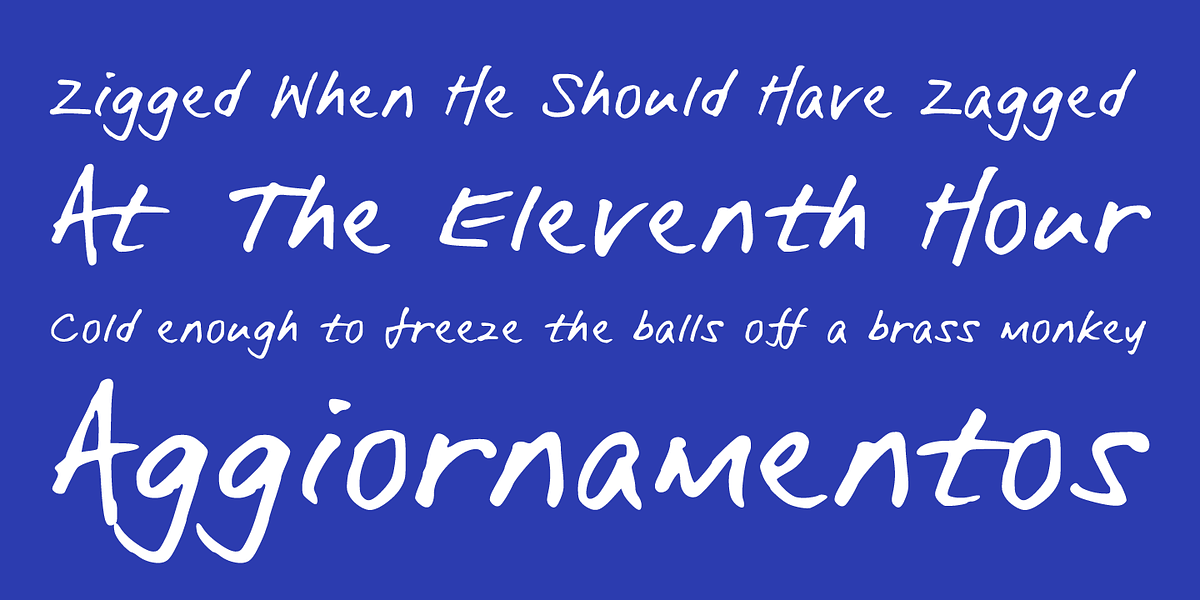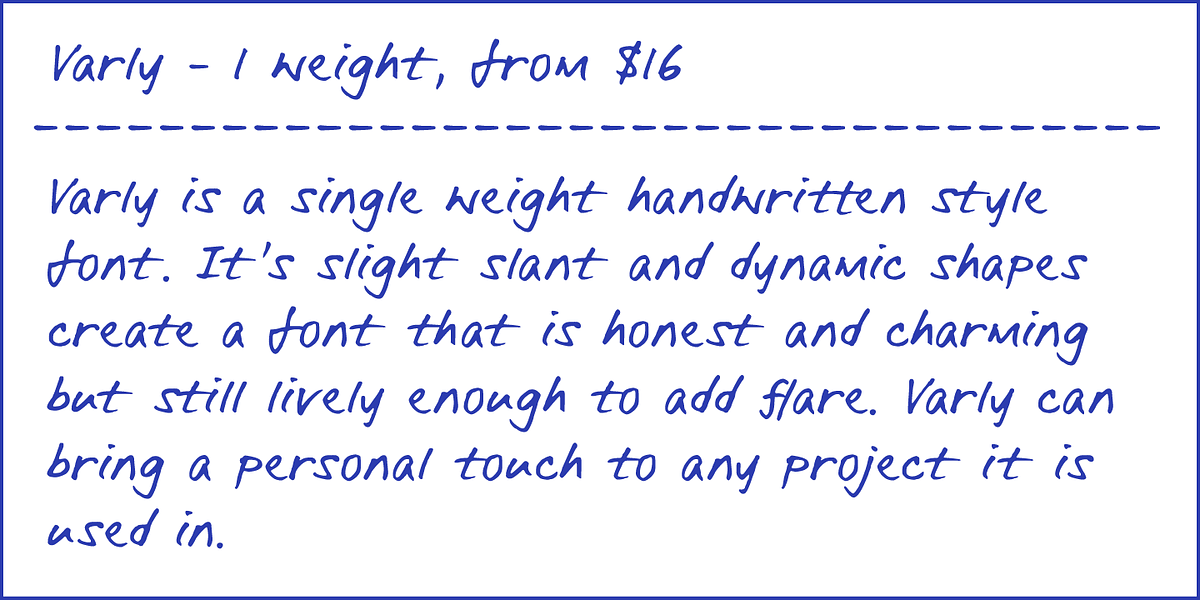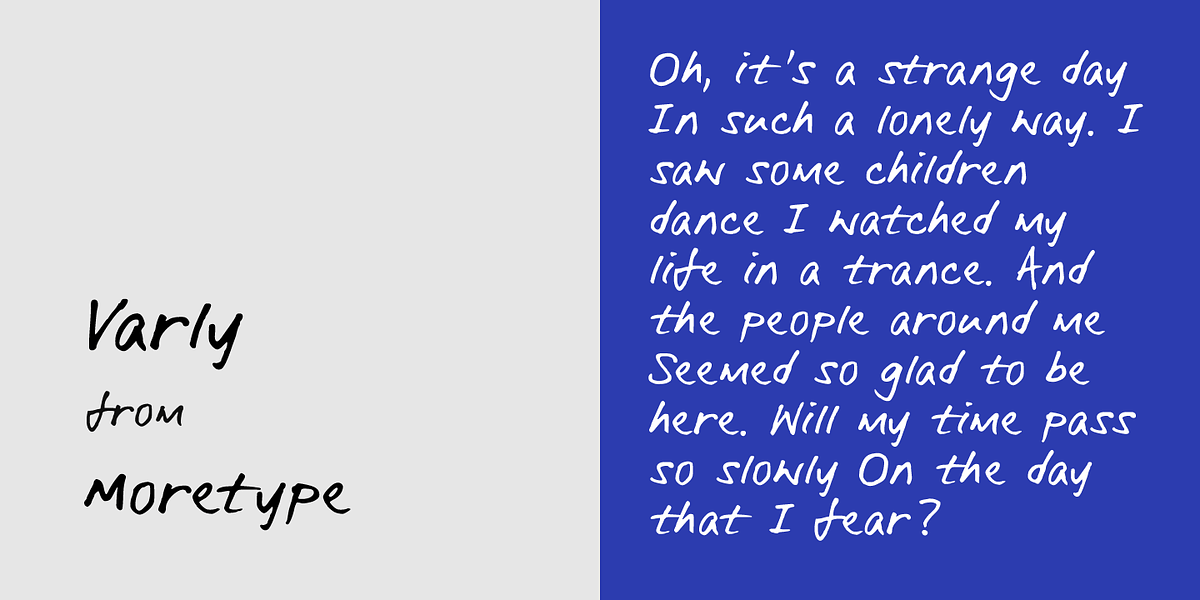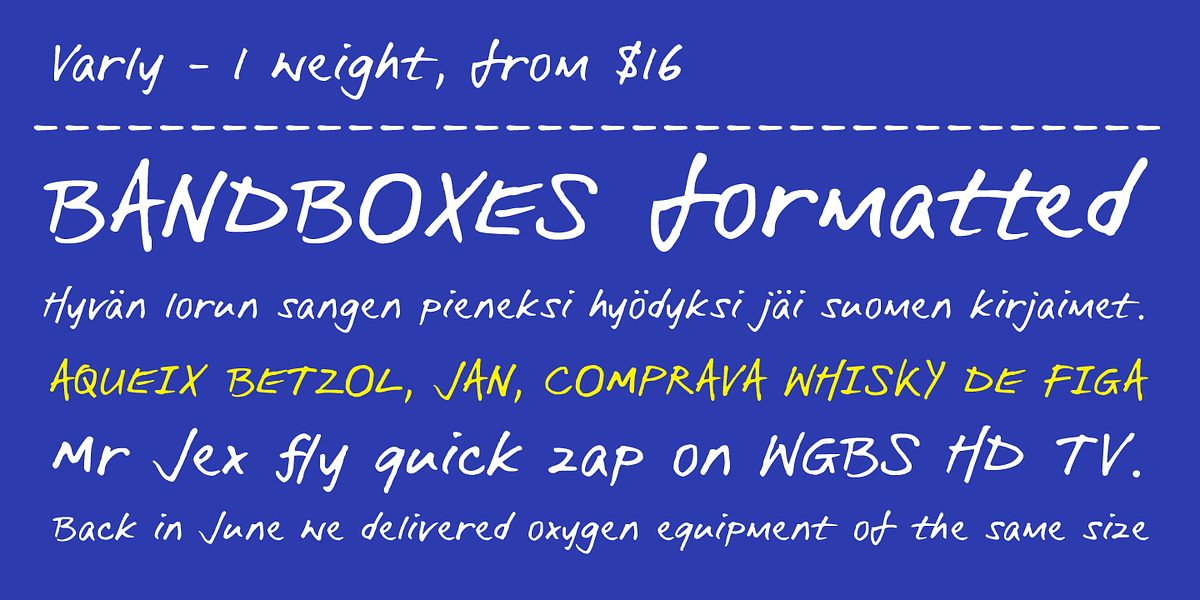
Varly
Varly is a single-weight handwritten font designed to bring a personal touch to projects. Its slightly slanted letters and dynamic shapes contribute to an overall impression of honesty and charm while still retaining enough liveliness to stand out.